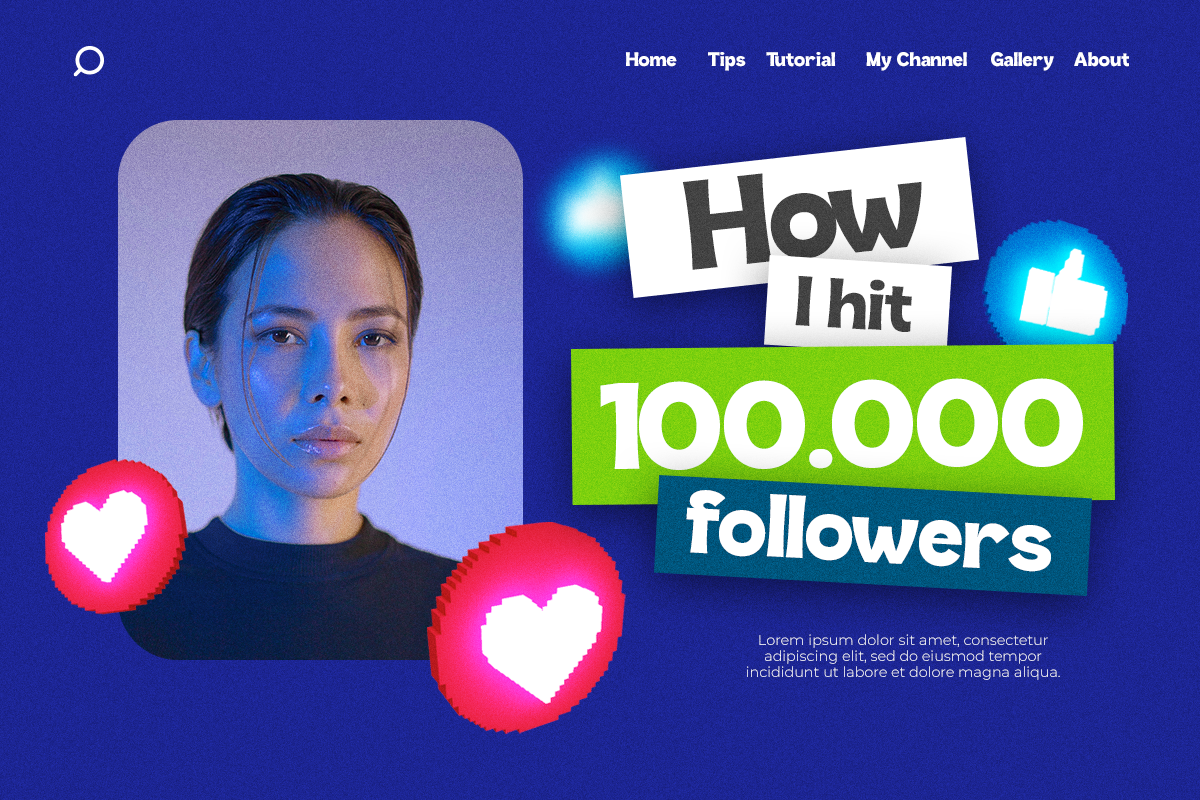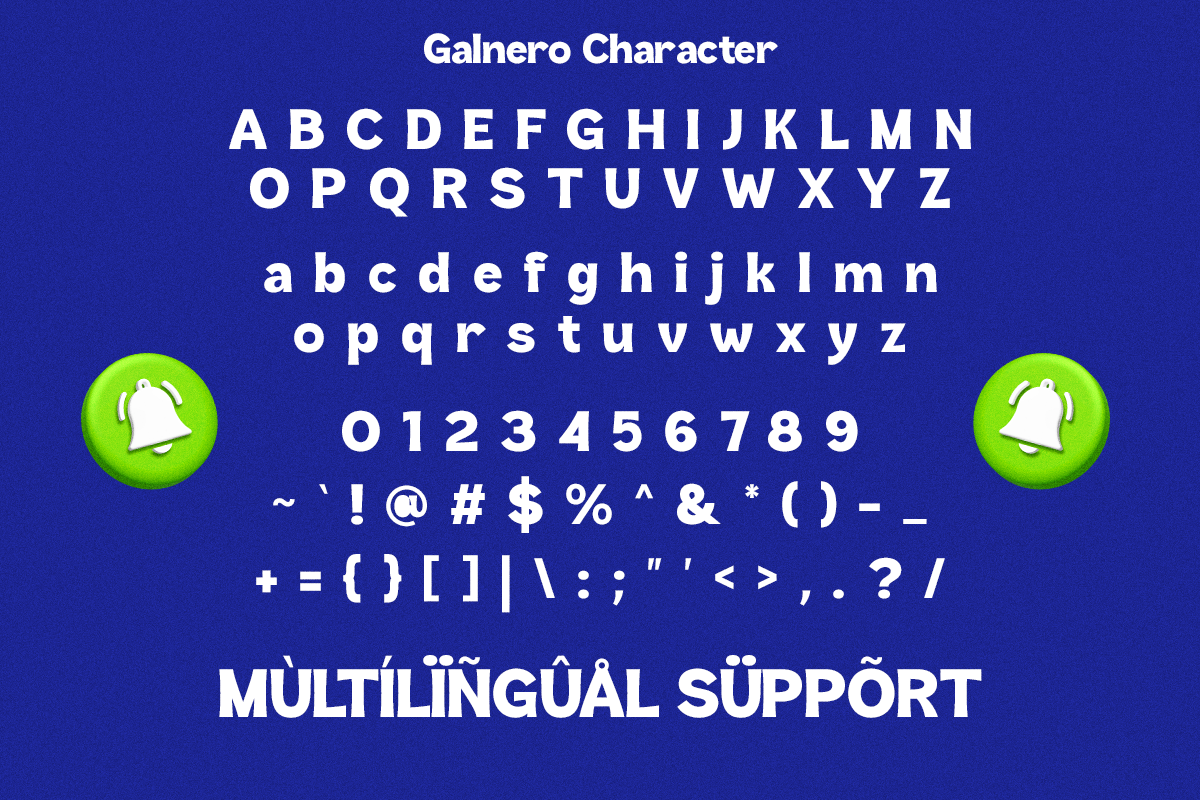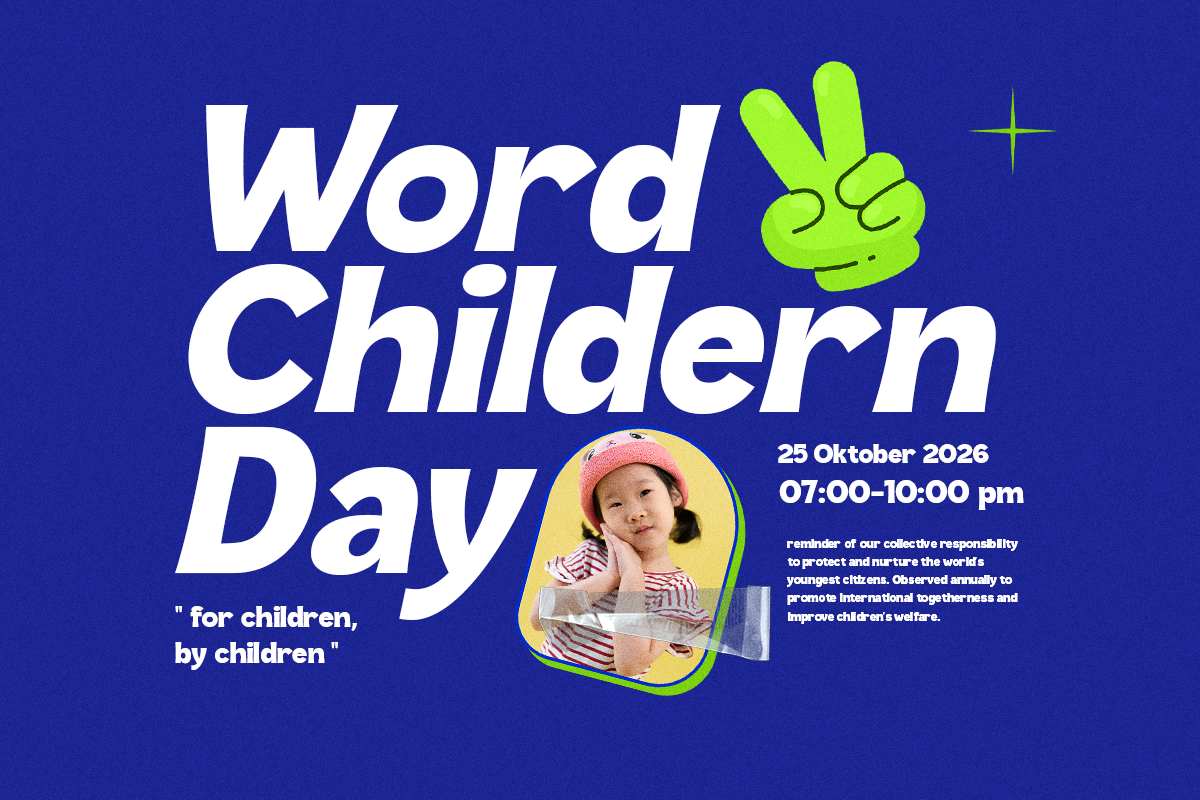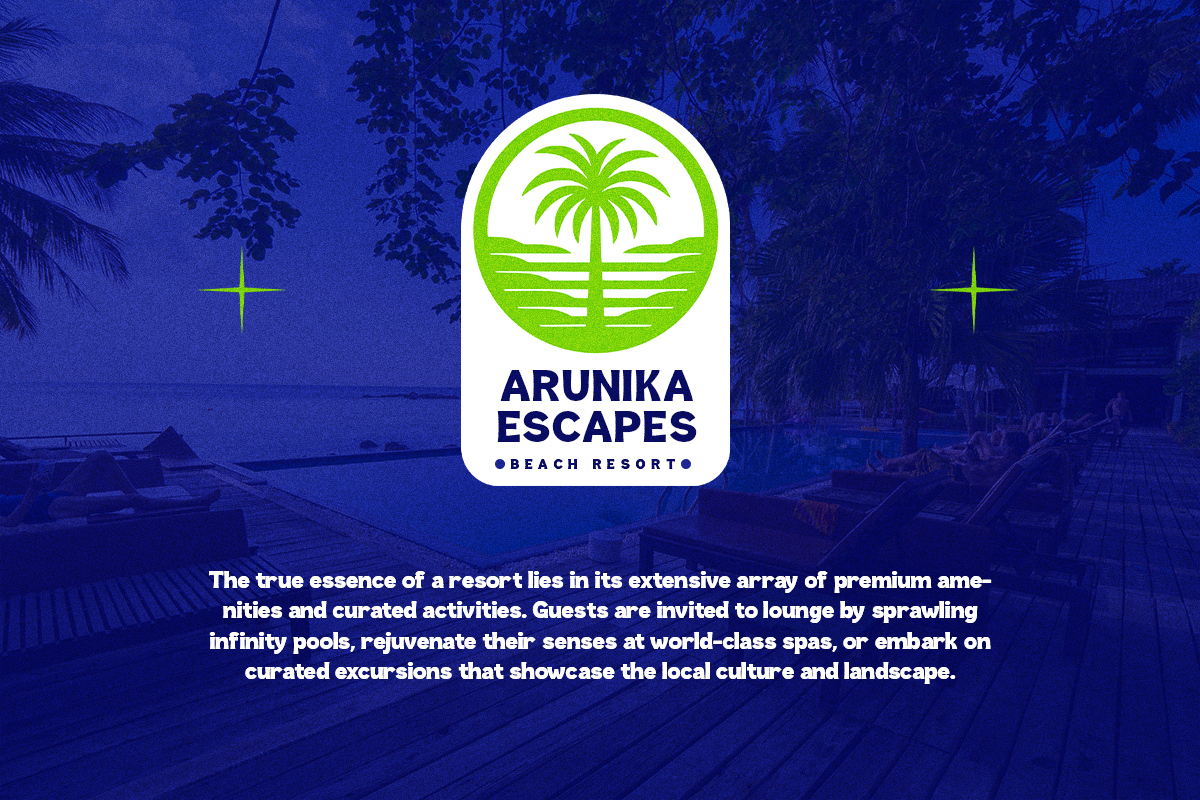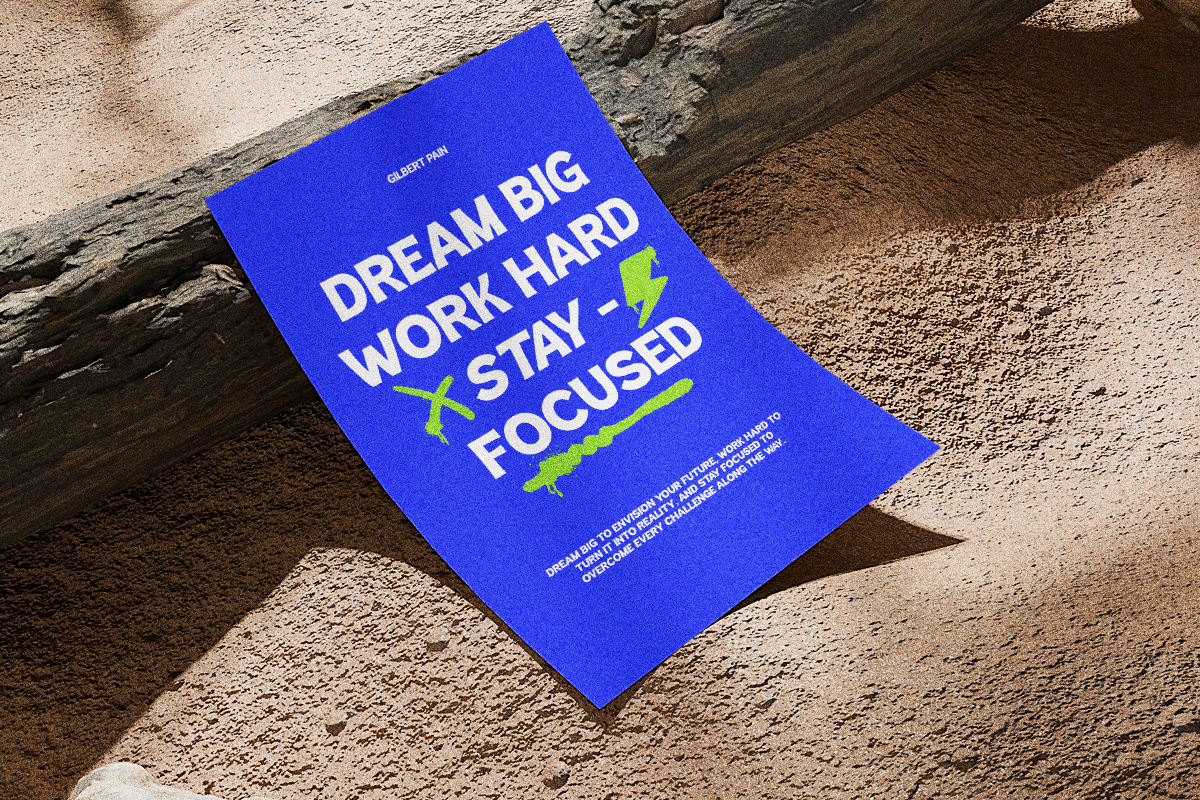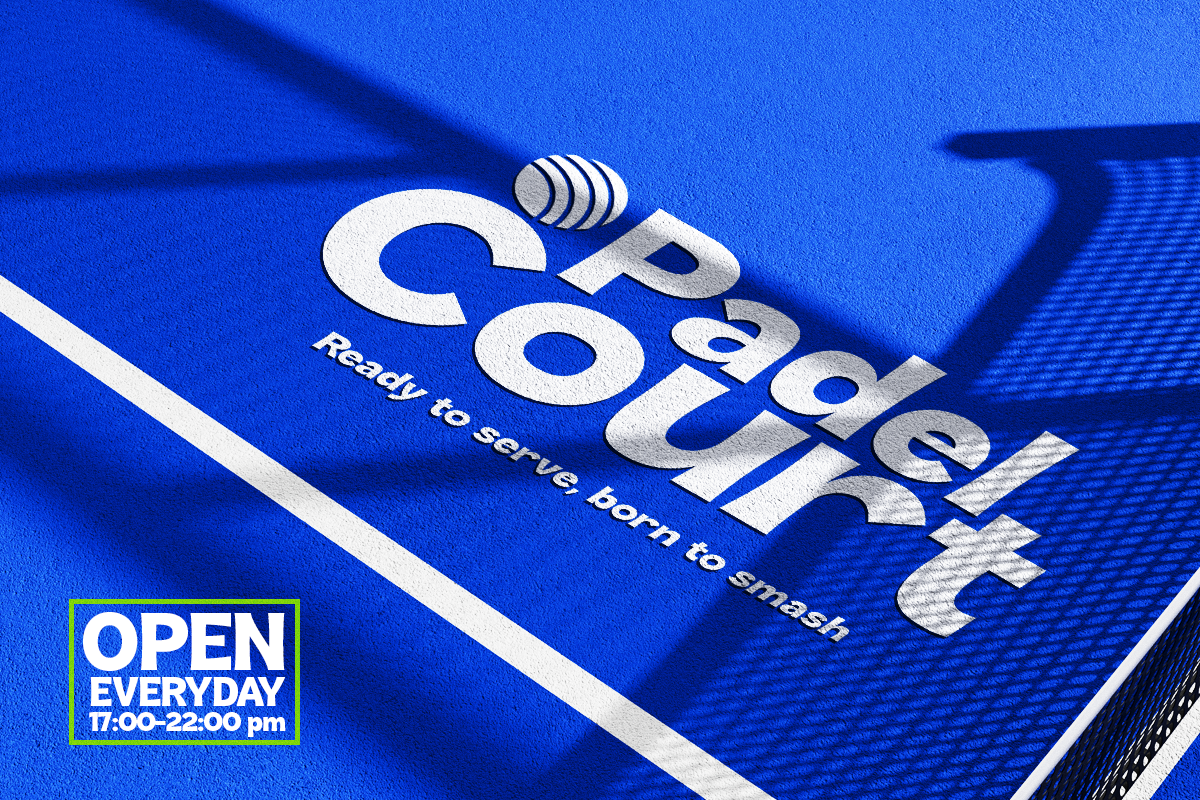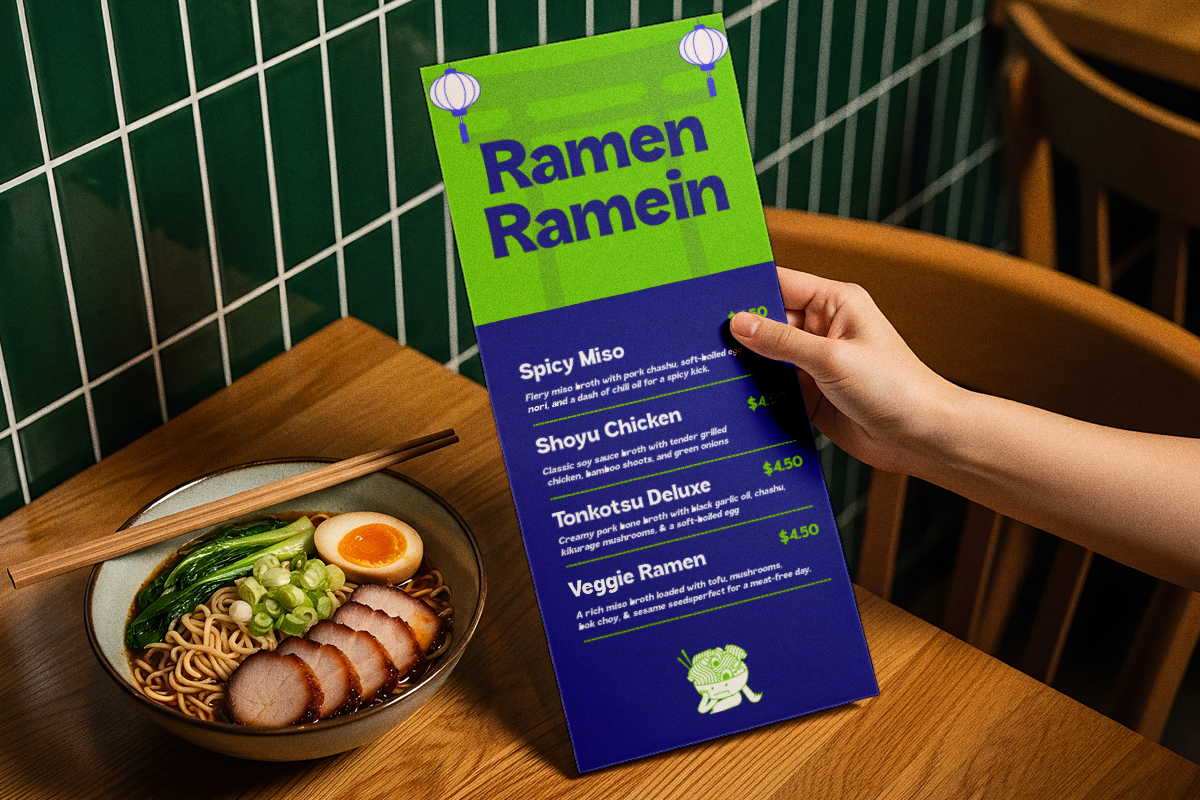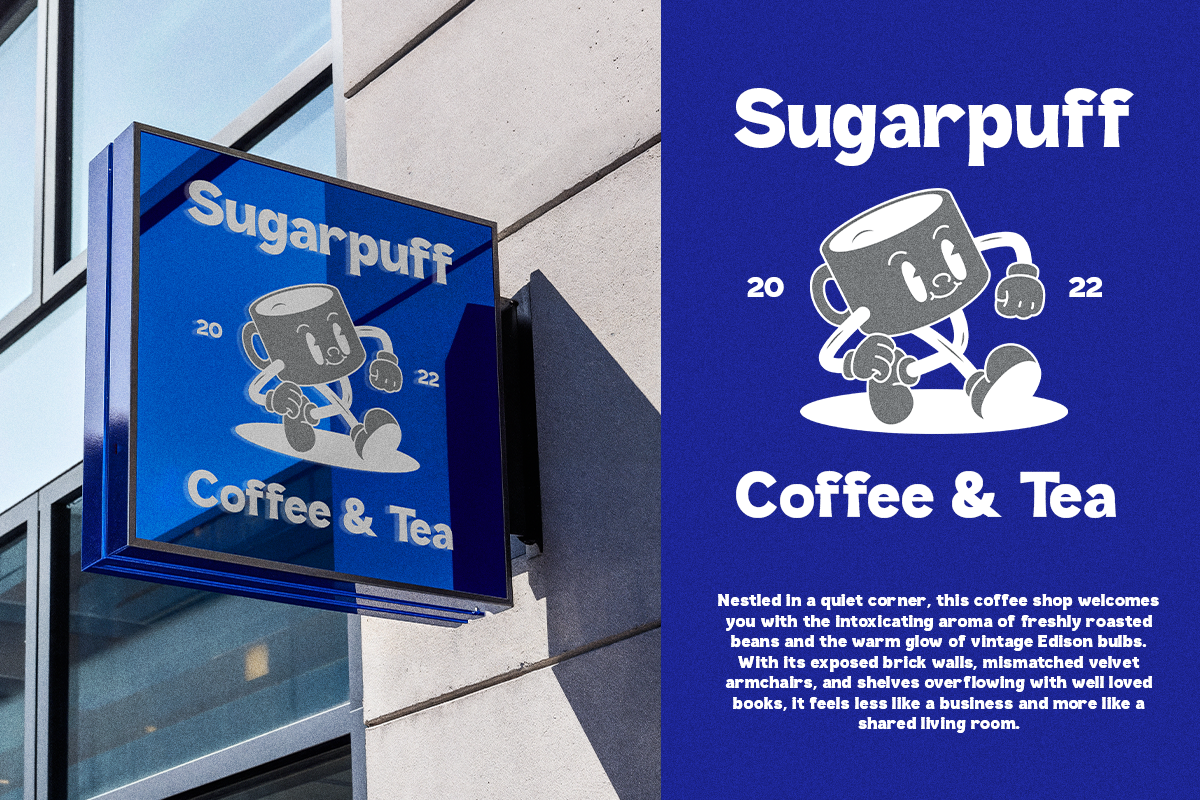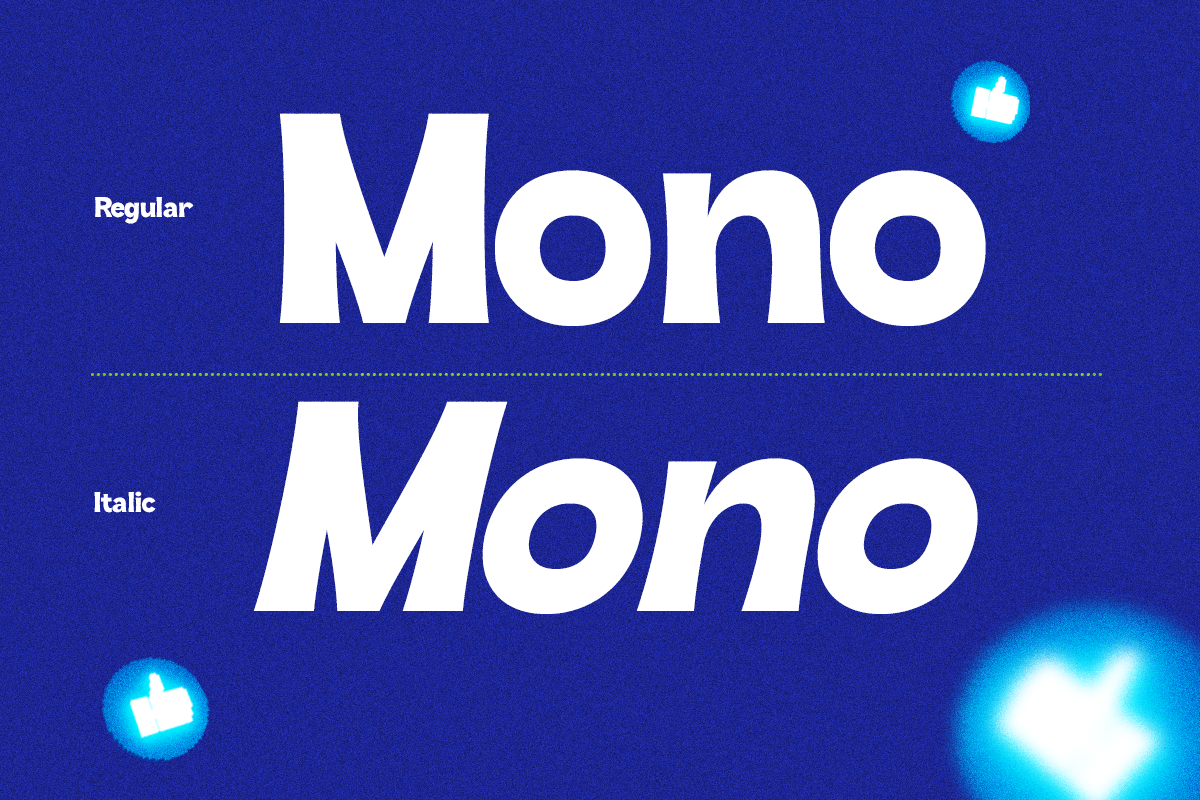
Galnero - A Display Sans Serif
Galnero is a bold display sans font designed to create strong visual impact with a clean and modern aesthetic. Featuring solid letterforms and smooth curves, Galnero delivers a confident and contemporary style that instantly stands out. Its bold structure ensures excellent readability while maintaining a distinctive and eye-catching presence.
Inspired by modern branding and digital design trends, Galnero is perfect for projects that require clarity and attention. Whether you're creating logos, posters, social media content, or bold headlines, this font provides a professional yet approachable feel. The combination of simplicity and strength makes it highly versatile for both creative and commercial use.
Galnero is built for designers who want to communicate power, clarity, and modern identity. From branding projects to digital campaigns, this font helps you create bold visuals that leave a lasting impression.